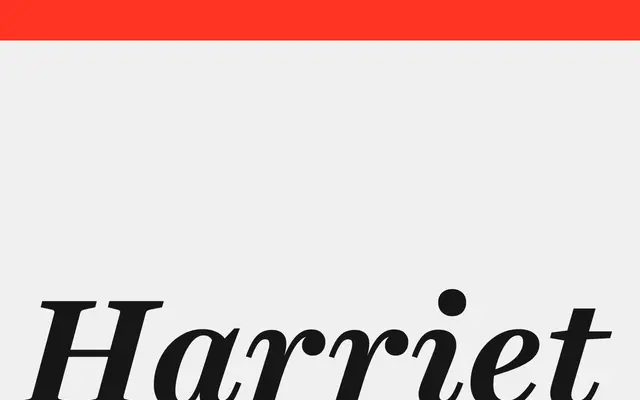
Harriet
Okay Type · Jackson Showalter-Cavanaugh · 2012
A two-optical-size transitional serif by Jackson Showalter-Cavanaugh, reworking Baskerville through the lens of Scotch Roman faces like Century, released in 2012 and recognised with a TDC Medal and Communication Arts trophy.
Harriet comes in Display and Text optical variants, the former offering exuberant contrast and sparkle at large sizes, the latter a more restrained elegance suited to body copy. Six weights from Thin to Black run across both sizes, each with a true italic, giving a total of 22 styles. OpenType features include small caps, discretionary ct and st ligatures, alternate figure styles and Vietnamese support added in version 2.0.
Harriet is described as a contemporary reimagining of Baskerville filtered through subsequent Transitional and proto-Modern faces, particularly Scotch Roman typefaces such as Century, placing it squarely in the transitional serif tradition.